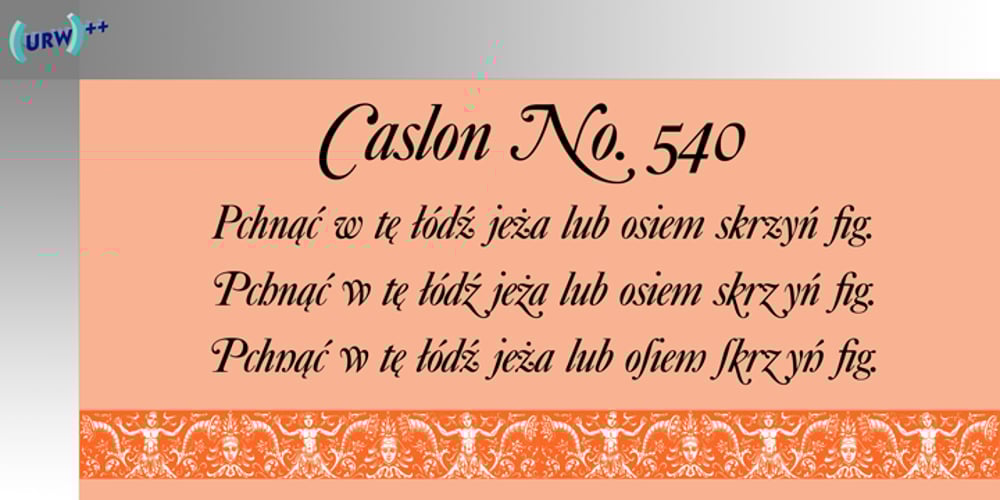
Caslon 540
Caslon 540 font
Caslon 540 Font Family was designed by William Caslon and published by URW Type Foundry. Caslon 540 contains 3 styles and family package options. William Caslon (1692-1766) laid the foundation for English typefounding, when he cut his first roman face in London in 1722. He modeled his designs on late seventeenth-century Dutch types; thus his typefaces are classified as Old Styles. The original Caslon punches have been preserved, enabling a perfect recutting of his faces. Notice the hollow in the apex of A and the two full serifs or beaks in the C. The italic capitals are irregular in their inclination. The Caslon font family is distinctive for use in subheadings or continuous text.